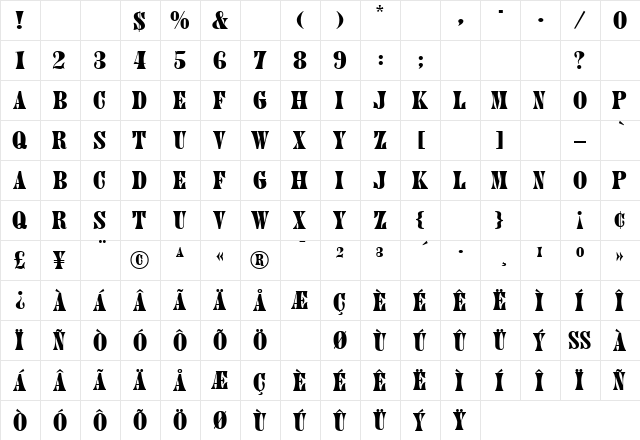
PageCaps Bold
Design Context for PageCaps Typeface
PageCaps takes a measured approach to typography — its balanced proportions and neutral character make it a reliable workhorse for both digital and print work. The heavy weight commands attention and anchors typographic hierarchies.